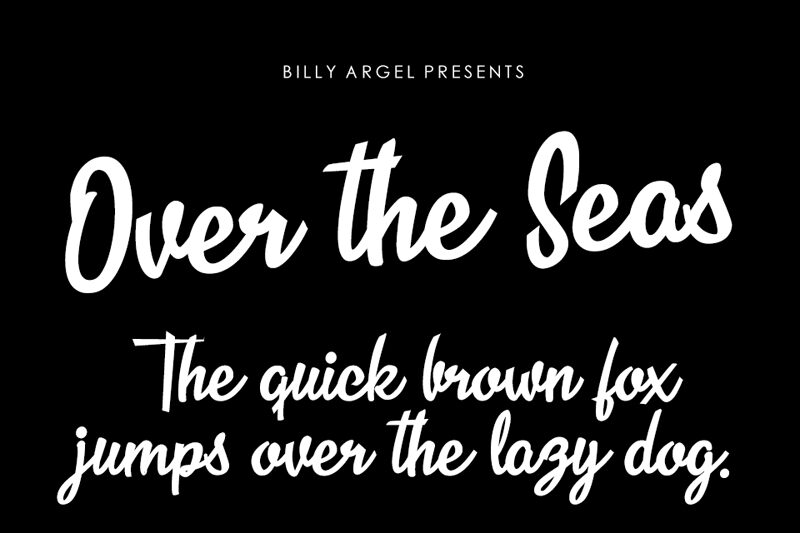
"Over the Seas" is a captivating handwritten font created by designer Billy Argel. The elegant, flowing script evokes a sense of adventure and exploration, with its sweeping strokes and organic, natural feel. The font's versatility shines through, making it a perfect choice for a wide range of design applications, from rustic wedding invitations to modern product packaging. Its unique character and visual appeal make "Over the Seas" a standout option for designers seeking to add a touch of whimsy and individuality to their projects.
This font would be an excellent selection for crafting eye-catching titles, impactful logos, or heartfelt handwritten elements. Its fluid, expressive nature lends itself well to creative endeavors that aim to convey a sense of warmth, authenticity, and enchantment.